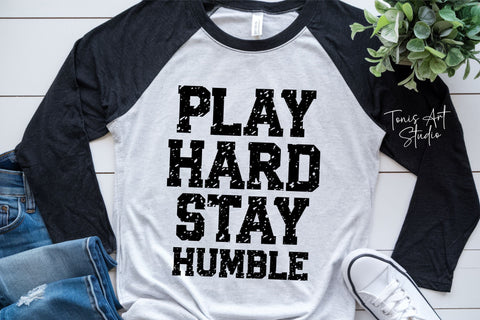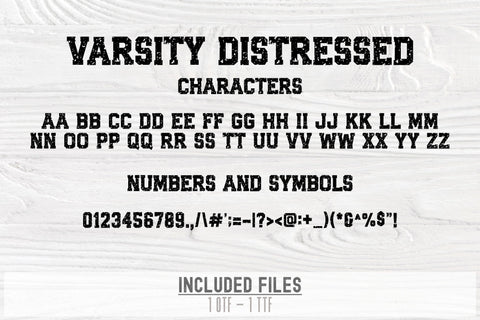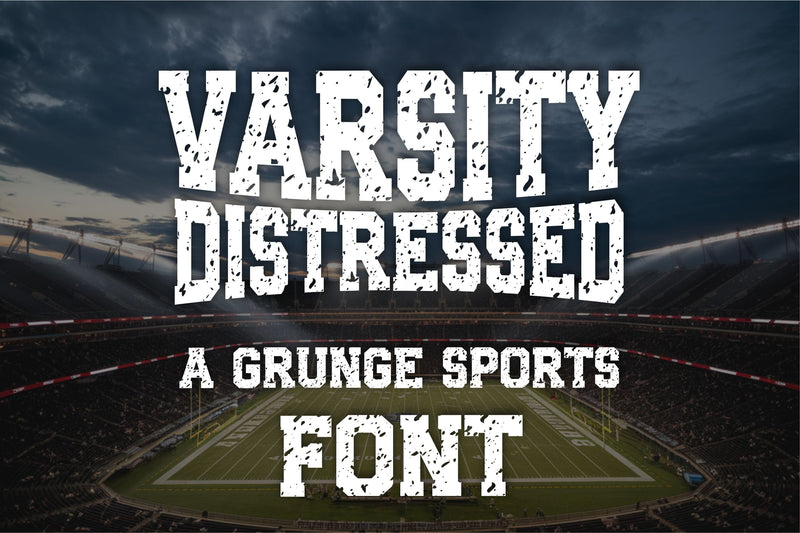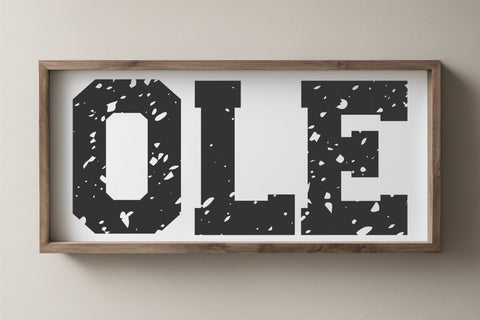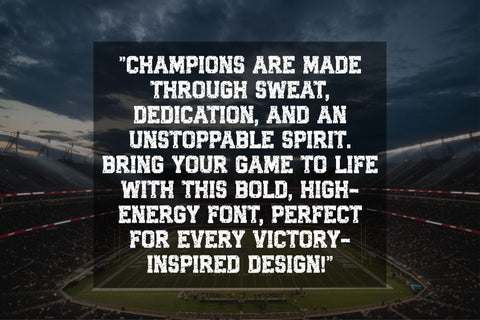
Varsity Distressed Font | Bold Grunge Sports Typeface
The Varsity Distressed Font is a bold slab serif sports typeface with a rugged, grunge texture, perfect for jerseys, t-shirts, team logos, and vintage athletic designs. Its classic collegiate style makes it ideal for football, baseball, basketball, and gym apparel projects.
✔ Varsity Distressed Font – Bold, grunge-style athletic typeface
✔ Full Alphabet (A-Z), Numbers, and Symbols
✔ Ideal for jerseys, t-shirts, banners, and sports branding
Perfect For:
🏆 Sports Logos & Jerseys
🏀 Athletic Team Branding
⚾ Vintage & Collegiate Designs
💪 Gym & Motivational Apparel
🎨 Sublimation & Cricut Projects
📣 Social Media Graphics & Posters